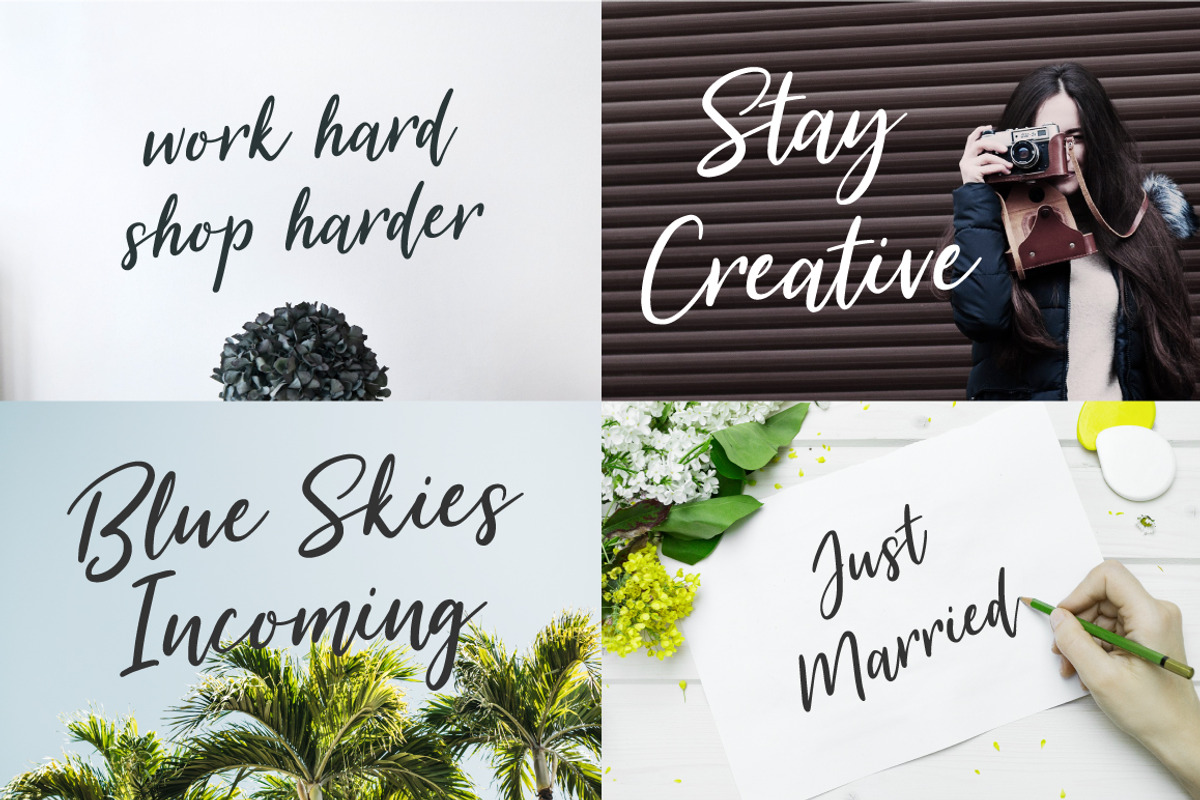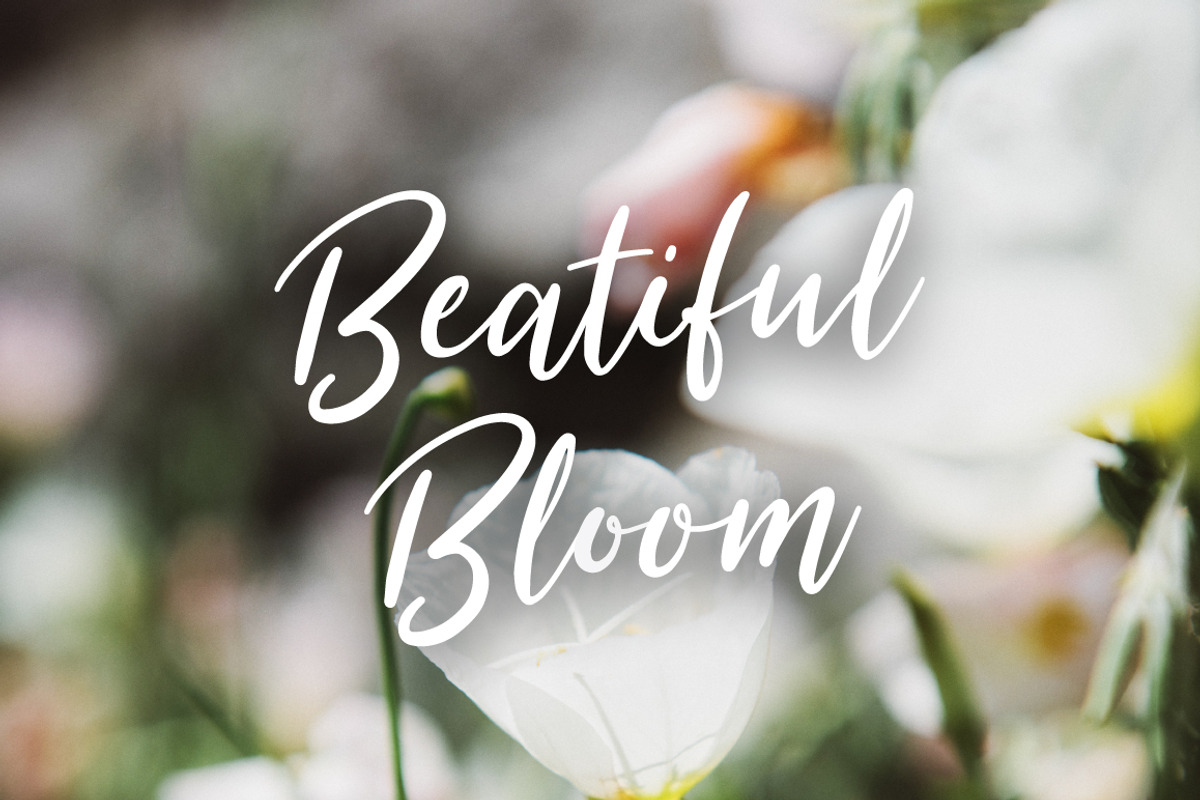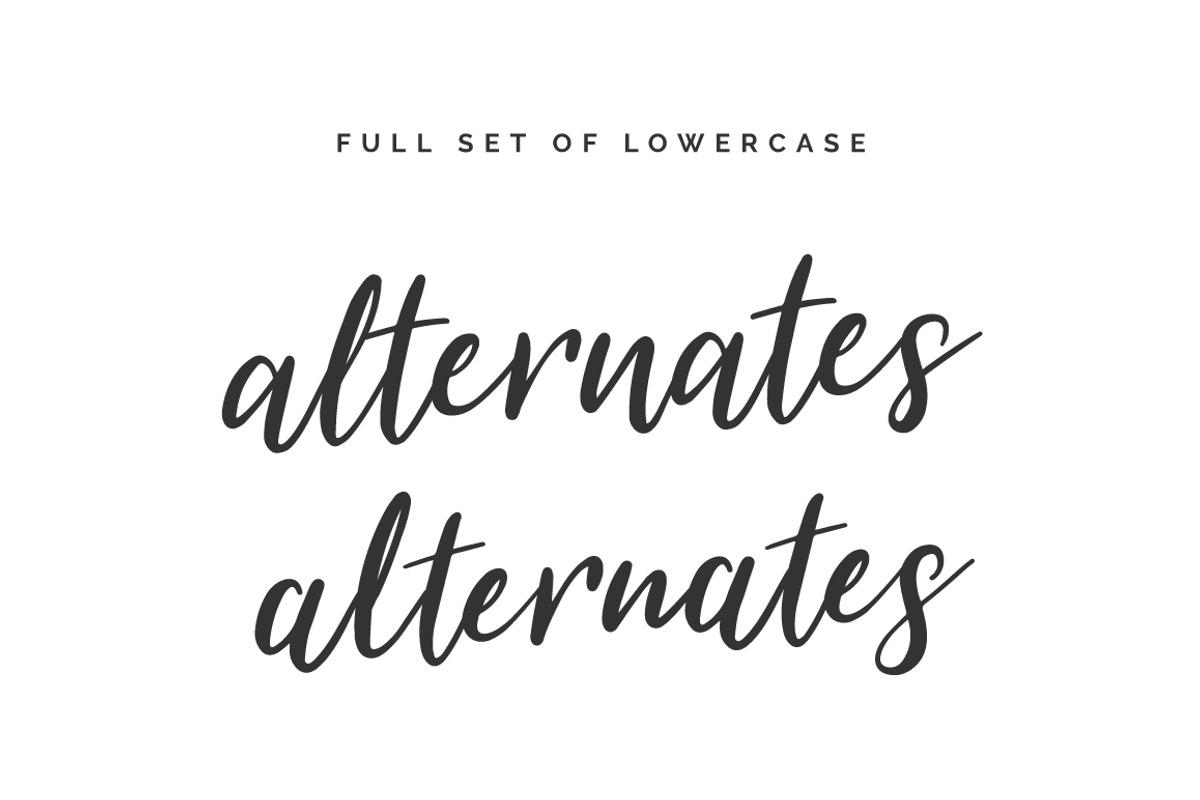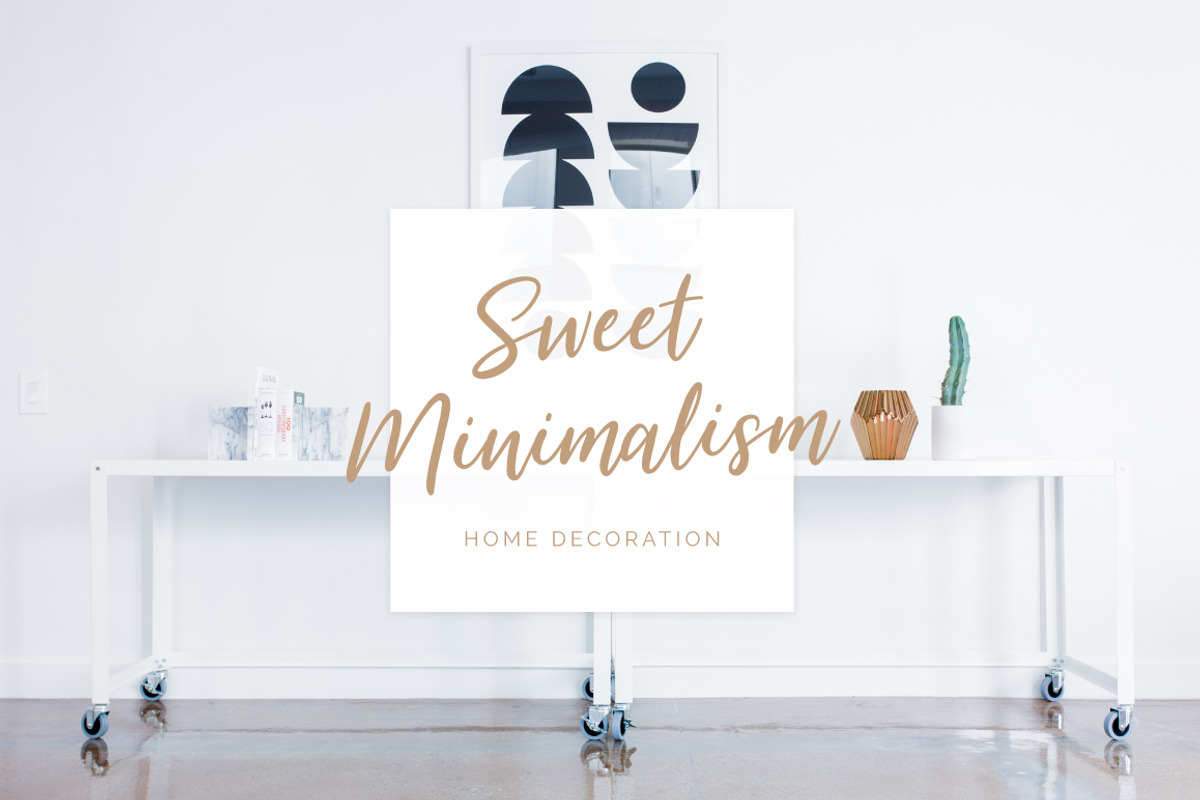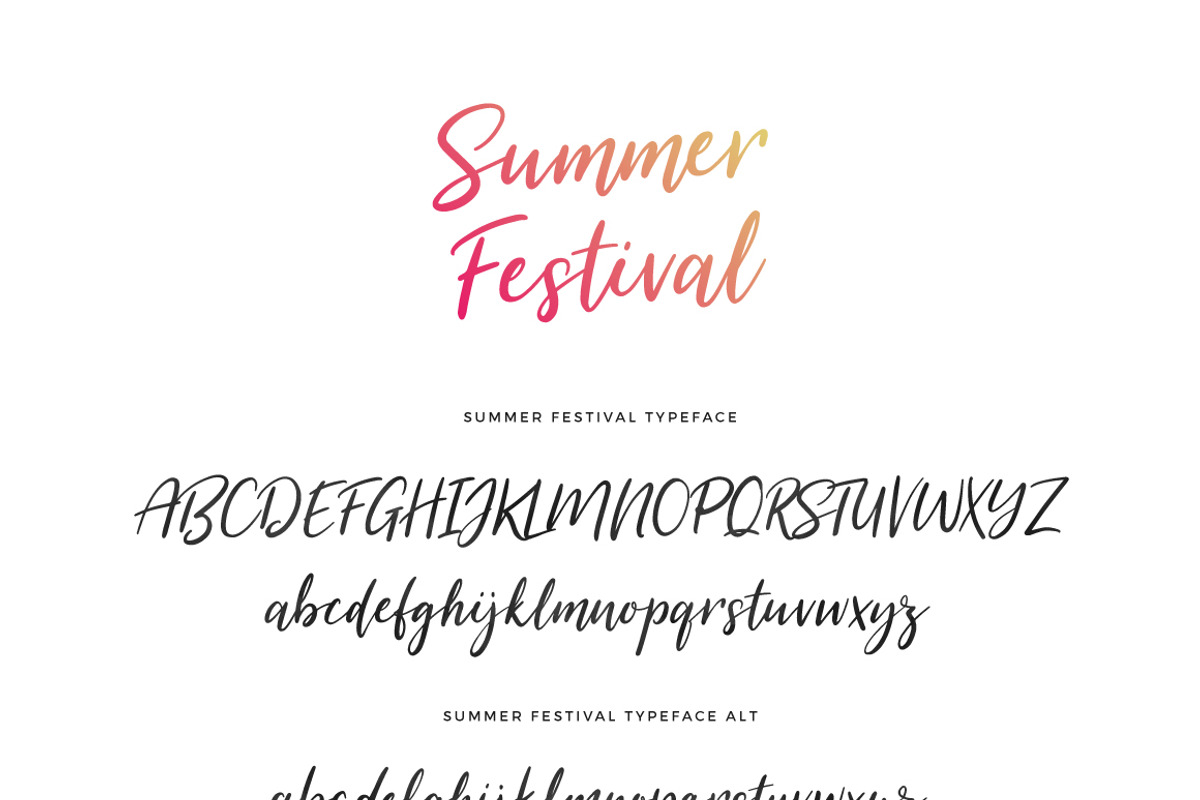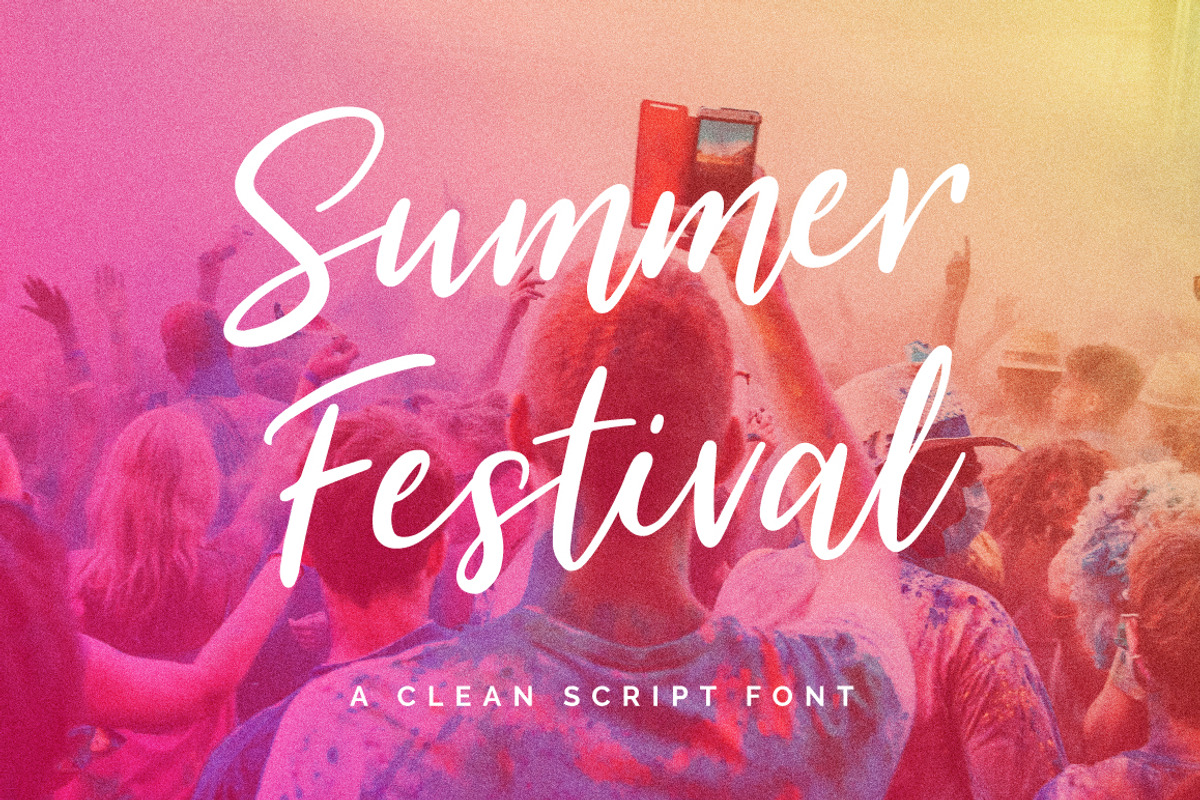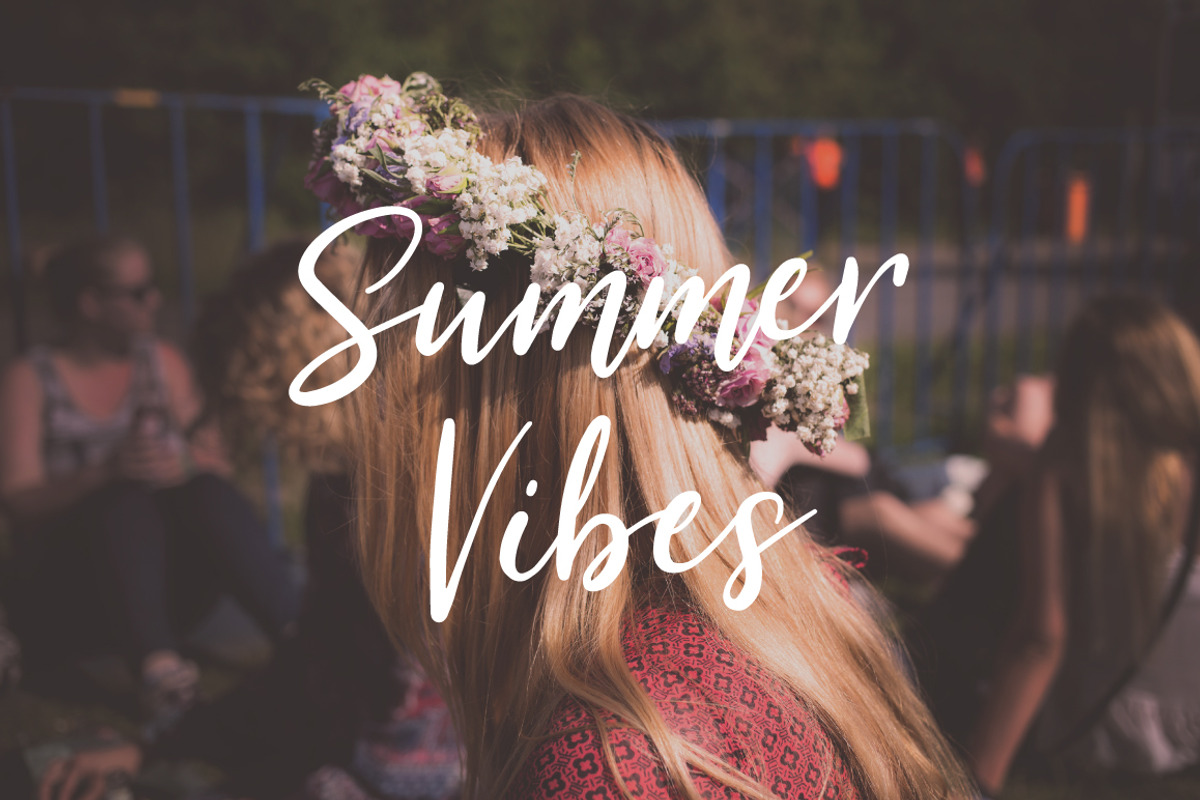
Summer Festival Typeface
Summer Festival Typeface by Mats-Peter Forss is a font selected for branding, posters, packaging, typography.
- The pack includes alternates for lowercase characters to make it look like freshly hand written.
- Alternates for lowercase characters.
Why Summer Festival Typeface is worth a look
Summer Festival Typeface by Mats-Peter Forss fits naturally into Branding, posters, packaging, typography.